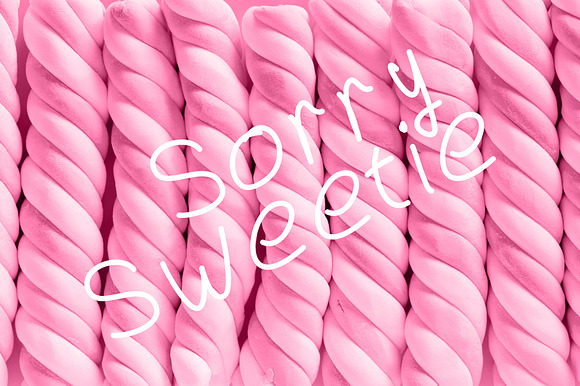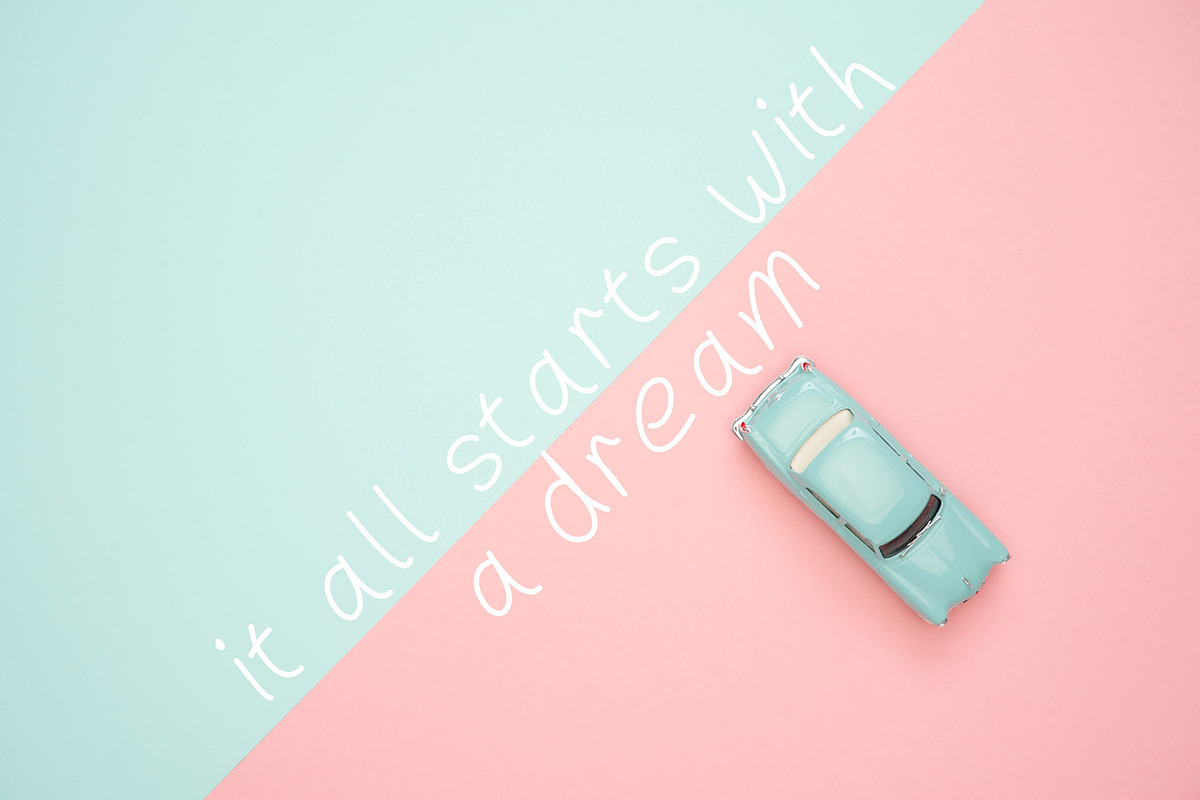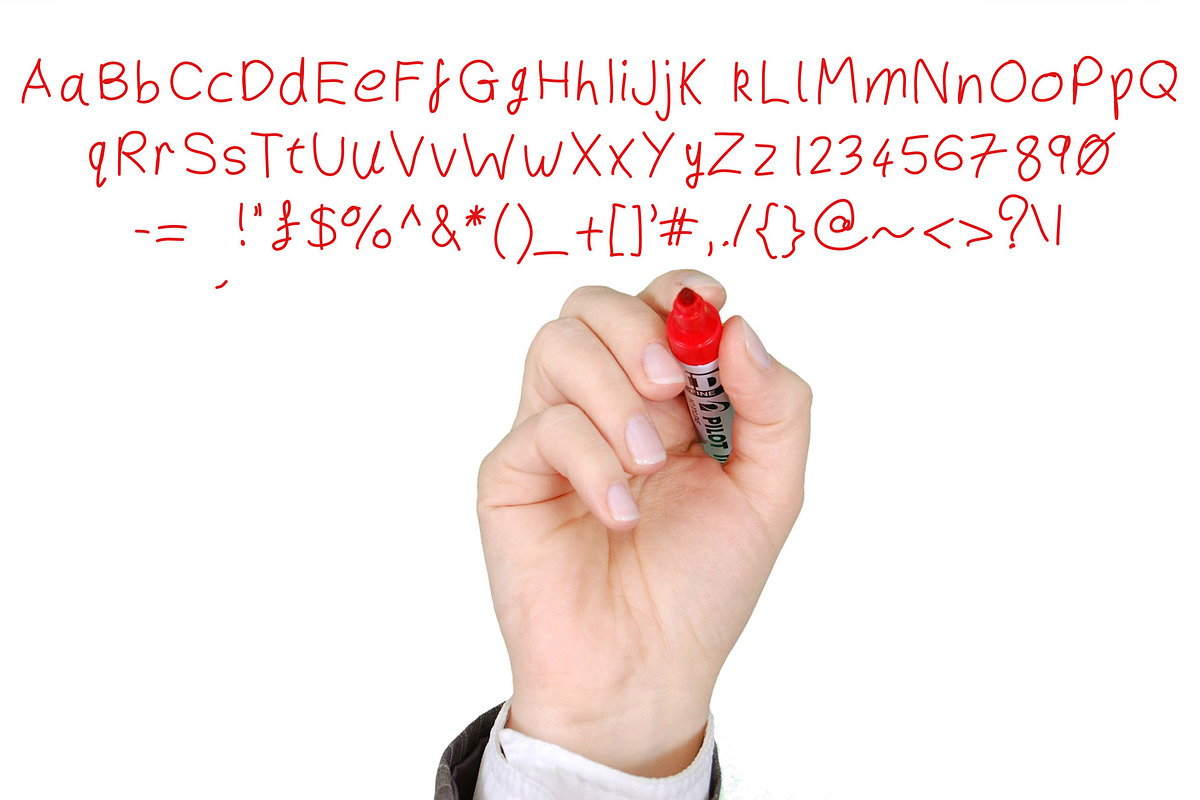
Sorry Sweetie - A Handwritten Font
A handwritten thin font with a child like quality. This playful font would look great in your print, mug or invitation designs.